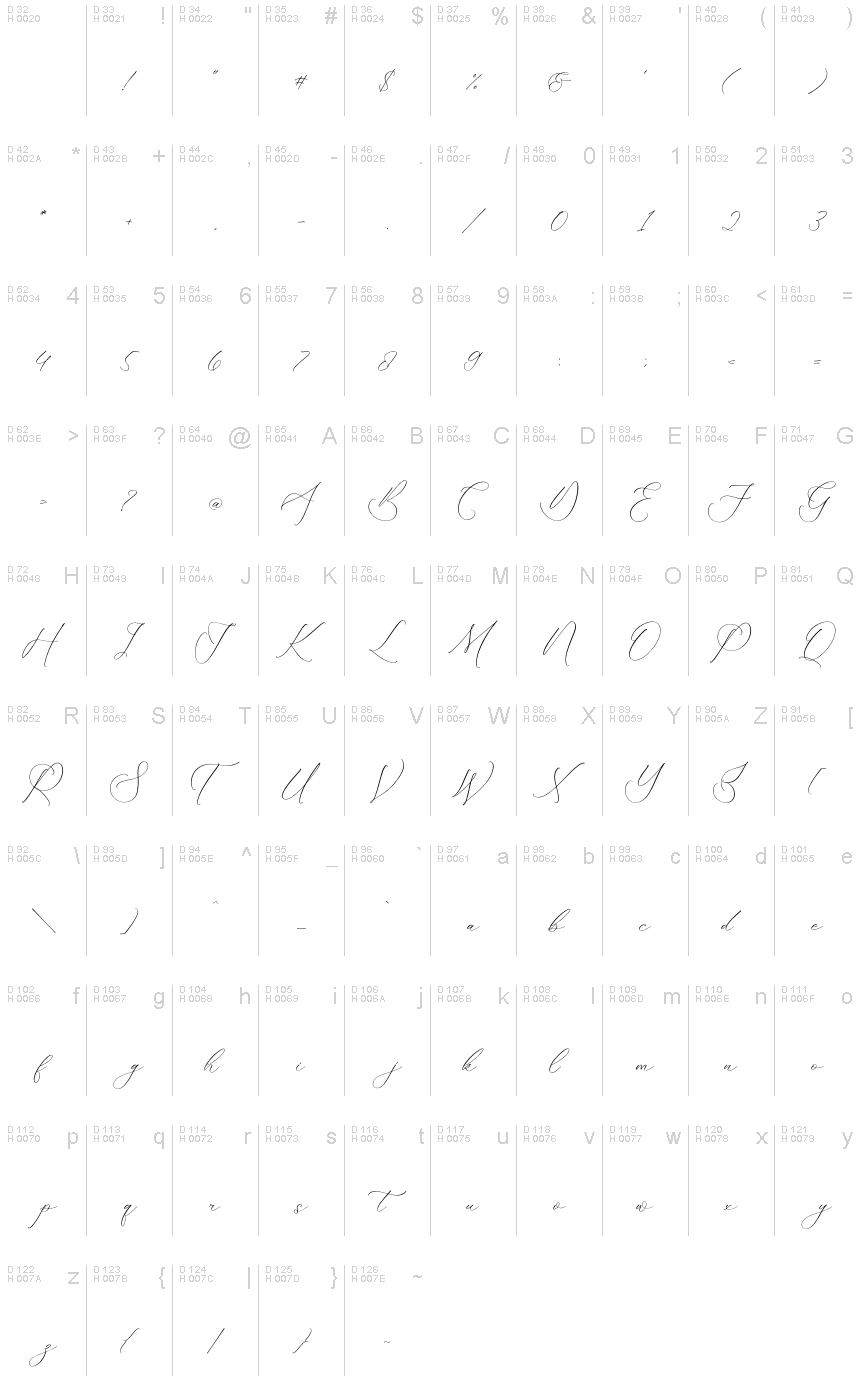
Fattrios Schudnel
Fattrios Schudnel, a captivating handwritten font crafted by Storytype Studio, exudes an effortless elegance and charm. Its light, flowing strokes create a sense of warmth and approachability, while the subtle variations in line weight add depth and character to the letterforms. This font's alluring script-like appearance evokes a sense of artistry and personalization, making it a delightful choice for a wide range of design applications.
The versatility of Fattrios Schudnel shines through in its adaptability to various design contexts. Its inviting and expressive qualities lend themselves beautifully to branding and marketing materials, such as logos, packaging, and promotional content. Additionally, this font's captivating nature makes it a compelling option for use in editorial design, social media graphics, and even personal stationery, where its unique character can truly shine.